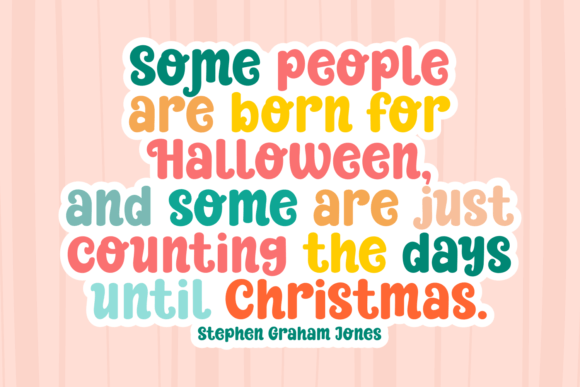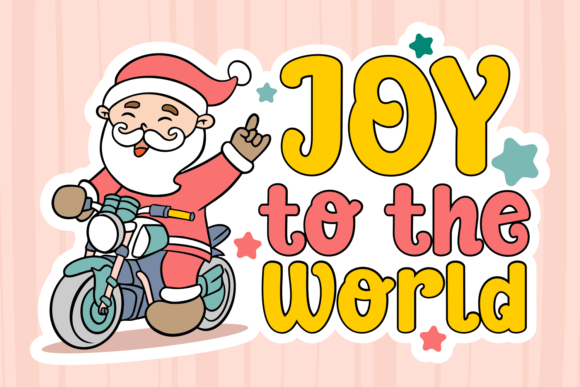
Reindeer Candy Font
Reindeer Candy font is a festive and whimsical handwritten typeface that captures the joy and magic of Christmas. With its playful and cheerful style, this font is perfect for adding a touch of holiday spirit to your greeting cards, gift tags, and holiday-themed projects. Let your text sparkle and shine like a reindeer’s nose with Reindeer Candy font!